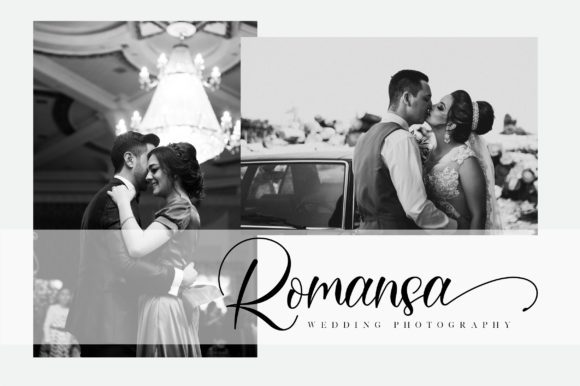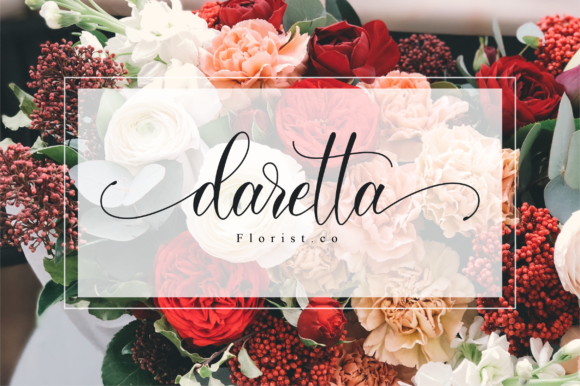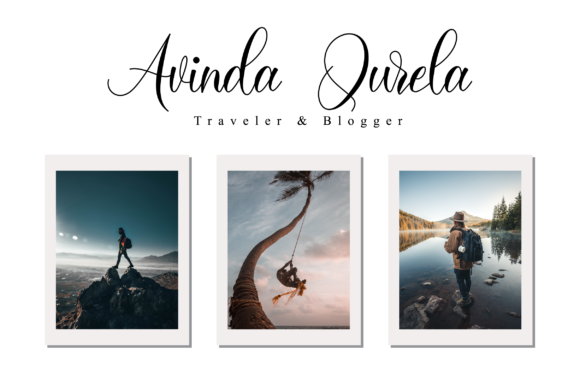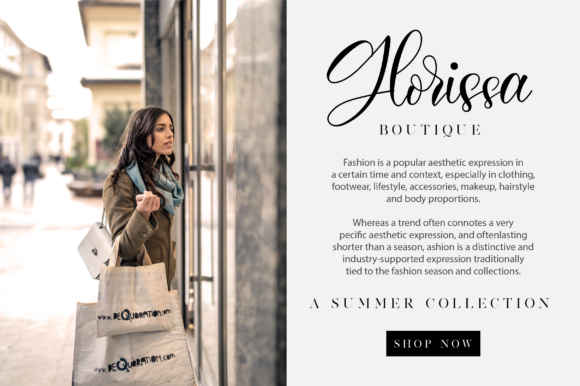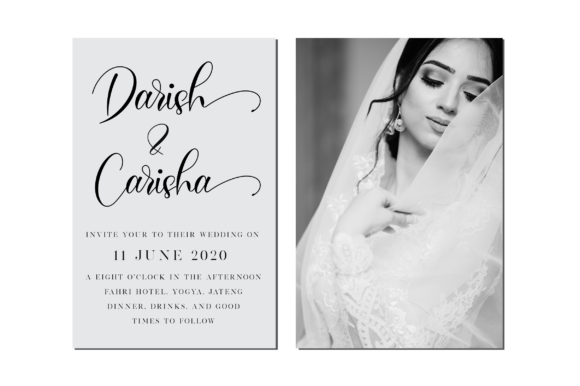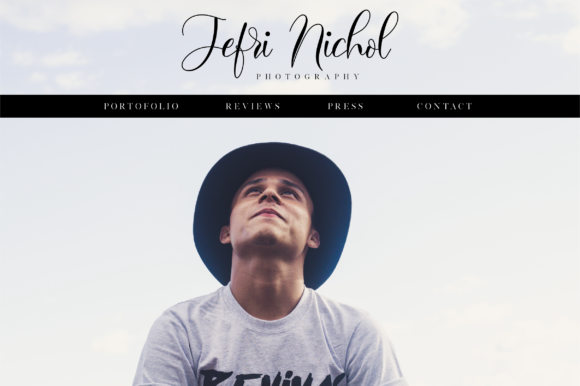
Discover the Elegance of Bailey Font: Elevate Your Designs with Class and Sophistication
Are you on the hunt for a font that exudes class, elegance, and modernity? Look no further than the stunning Bailey Font. This beautiful script is perfectly suited for a wide variety of projects, making it a versatile and valuable addition to any designer’s toolkit. In this article, we’ll dive into the world of Bailey Font, exploring its unique characteristics, uses, and benefits.
The Characteristics of Bailey Font
Bailey Font is a script font that boasts a unique blend of classic and modern elements. Its elegant, cursive strokes are reminiscent of traditional calligraphy, while its clean lines and subtle nuances bring a fresh, contemporary feel. The font’s sophisticated appearance makes it perfect for designs that require a touch of luxury, sophistication, and refinement.
What Makes Bailey Font So Versatile?
One of the standout features of Bailey Font is its incredible versatility. Whether you’re working on a wedding invitation, a branding project, or a craft tutorial, this font is sure to impress. Its elegant appearance makes it suitable for:
- Wedding and event invitations
- Craft tutorials and patterns
- Stationery and greeting cards
- Digital and print advertising
The Benefits of Using Bailey Font
So why choose Bailey Font for your next project? Here are just a few benefits of using this stunning script:
- Elegance and sophistication: Bailey Font adds a touch of class and refinement to any design.
- Versatility: This font can be used for a wide range of projects, from weddings to branding and beyond.
- Easy to read: Despite its elegant appearance, Bailey Font is surprisingly easy to read, making it perfect for body text and headlines.
- Unique and distinctive: Bailey Font stands out from more traditional fonts, giving your designs a unique and eye-catching edge.
Tips for Using Bailey Font Effectively
To get the most out of Bailey Font, here are a few tips to keep in mind:
- Use it sparingly: Bailey Font is perfect for headlines and titles, but can be overwhelming if overused. Balance it with simpler fonts for body text.
- Experiment with colors: Bailey Font looks stunning in a range of colors, from classic black and white to bold brights and metallics.
- Play with pairings: Try pairing Bailey Font with other fonts to create a unique and eye-catching combination.
In conclusion, Bailey Font is a stunning script that is sure to elevate your designs with its classy, elegant, and modern appearance. With its versatility, ease of use, and unique characteristics, this font is perfect for a wide range of projects. Whether you’re a designer, crafter, or DIY enthusiast, Bailey Font is a valuable addition to your toolkit. So why wait? Discover the elegance of Bailey Font today and take your designs to the next level!